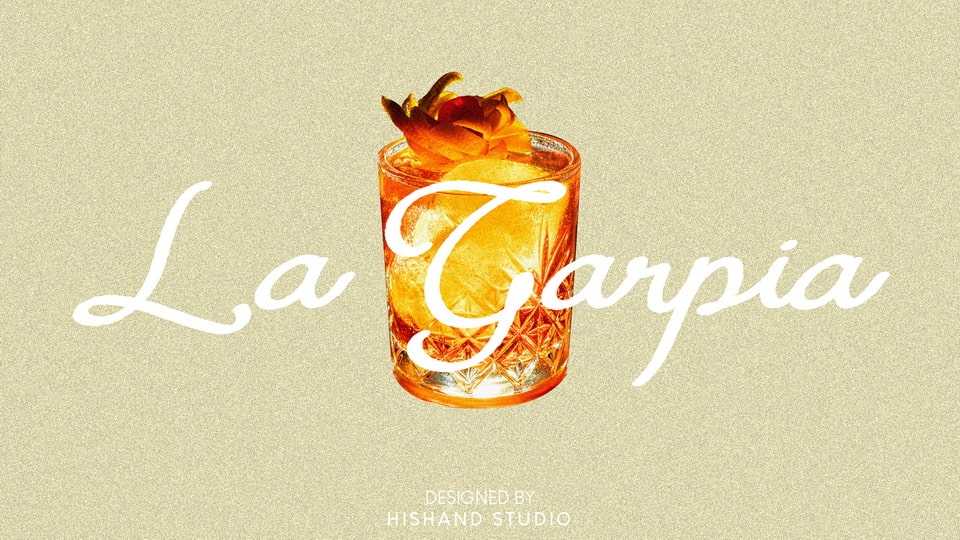
Download La Garpia font, a handwritten script typeface that brings a clean, natural flow to every design. Its smooth curves and gentle strokes create an elegant yet casual look.